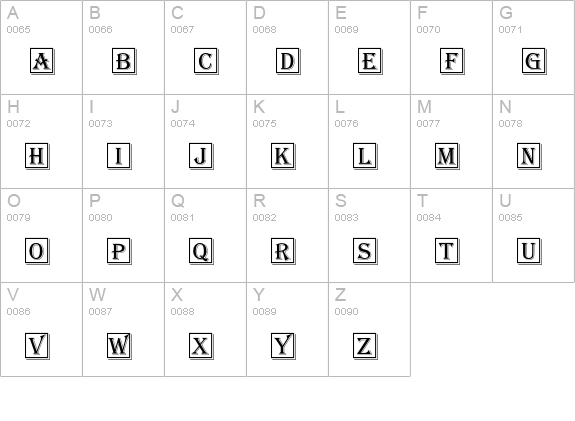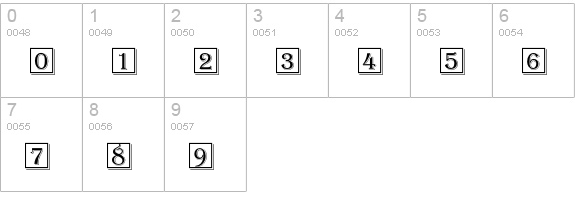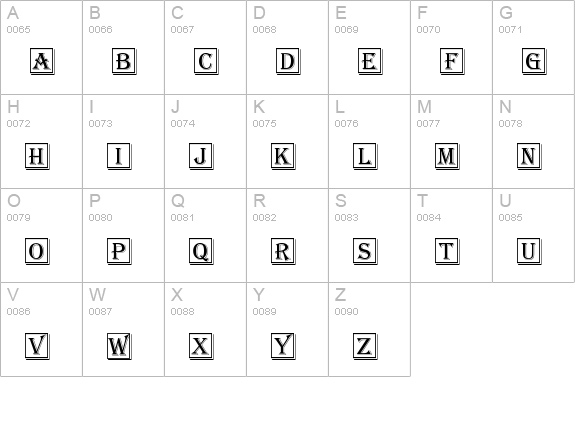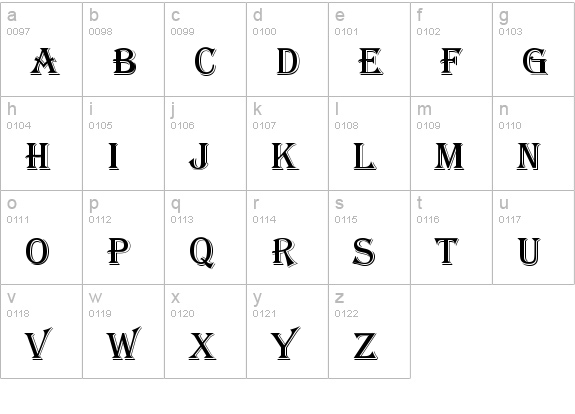
Algerian Initials D Font Details
Algerian Initials D font is a stunning and ornate typeface that exudes elegance and sophistication. With its intricate details and decorative elements, this font is perfect for adding a touch of class to any project. The elaborate design of the letters gives off a regal and timeless feel, making it ideal for formal invitations, event signage, or branding materials. What's even better is that Algerian Initials D font is completely free to download at FontsMarket.com. This means you can easily access this beautiful font and use it in your designs without any cost. Don't miss out on the opportunity to enhance your projects with this exquisite typeface - download Algerian Initials D font today and elevate your designs to the next level.